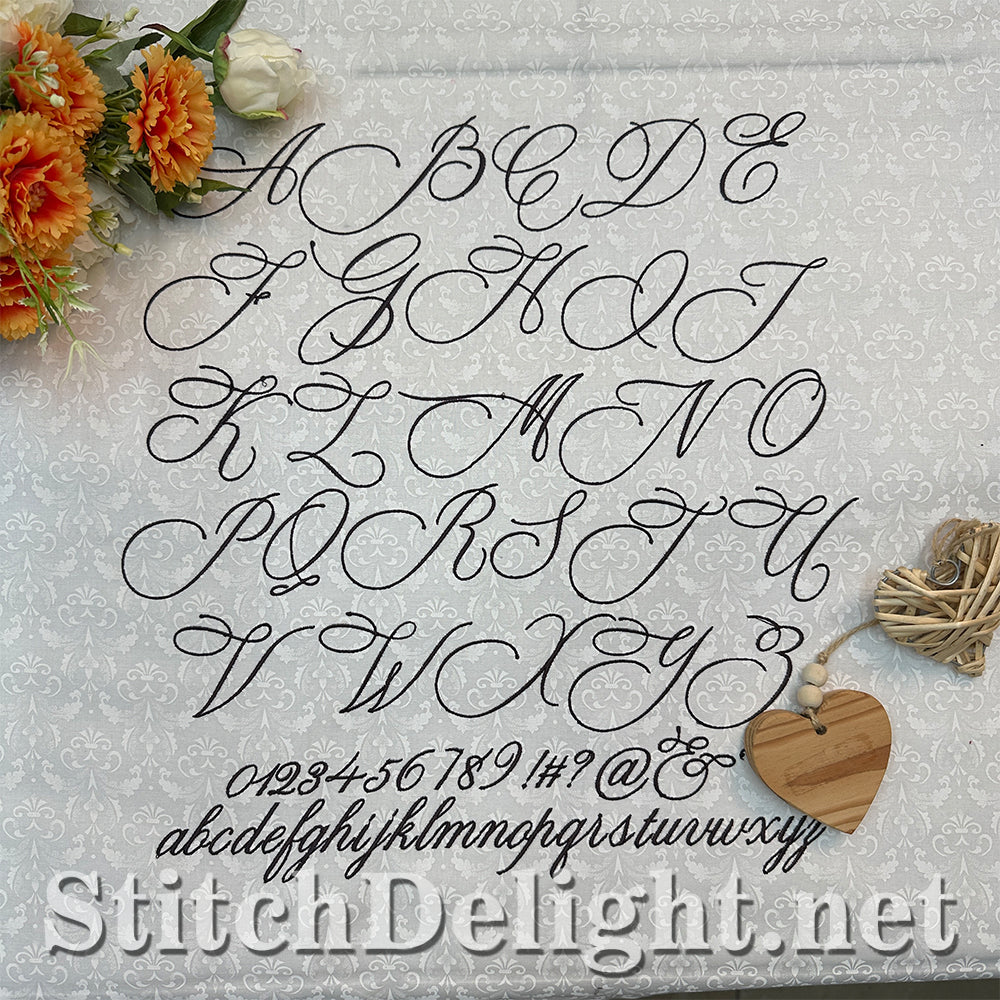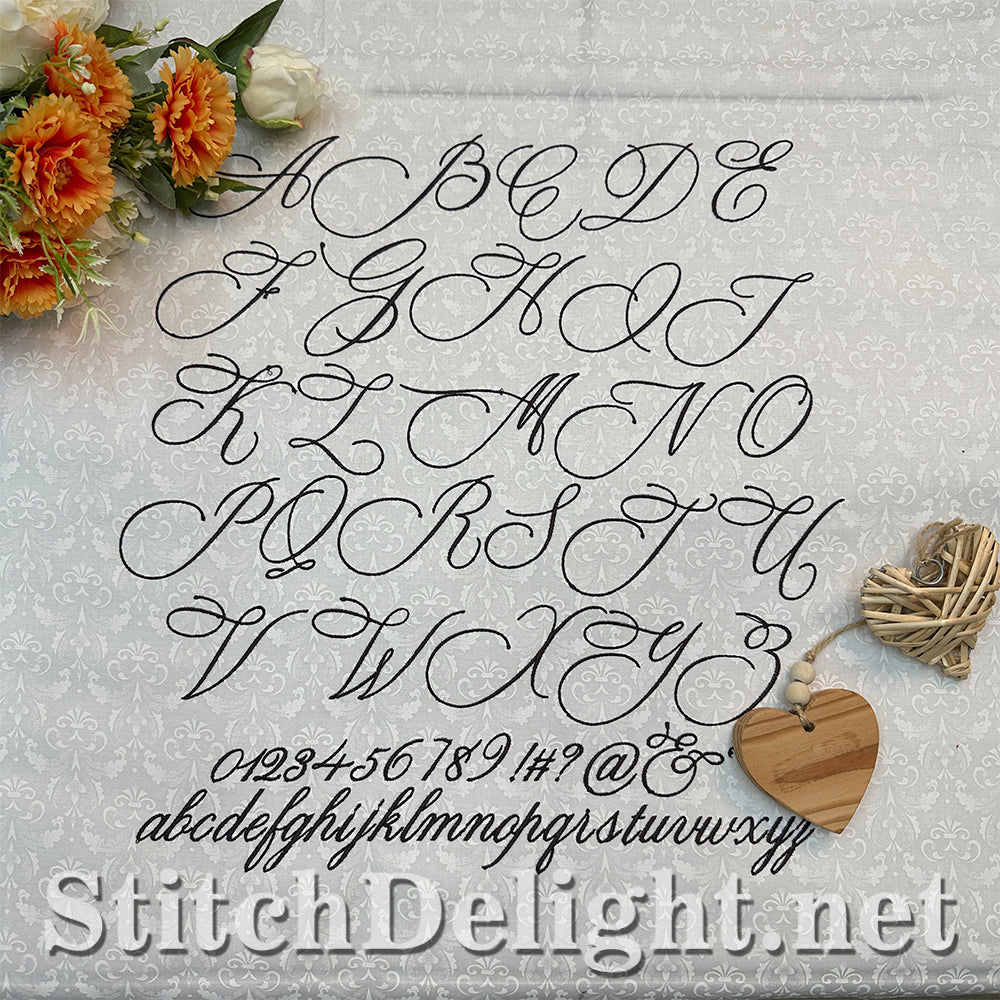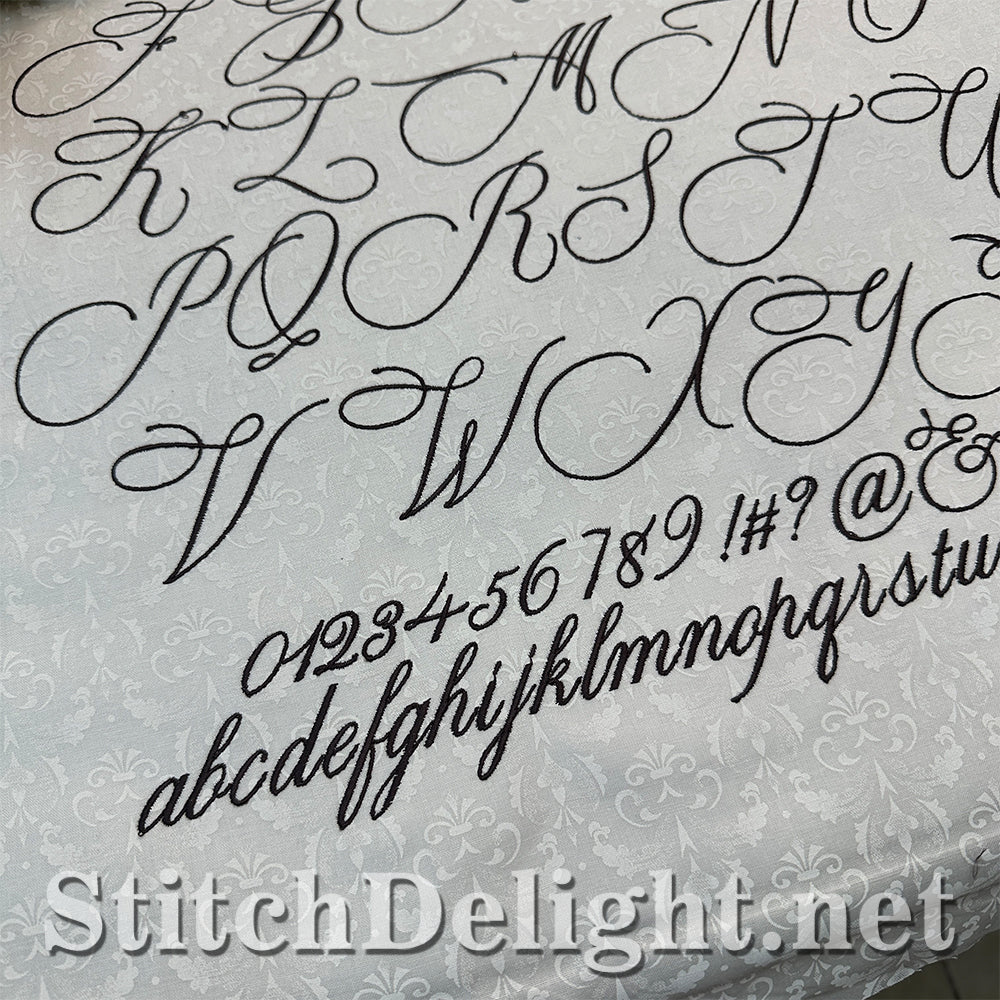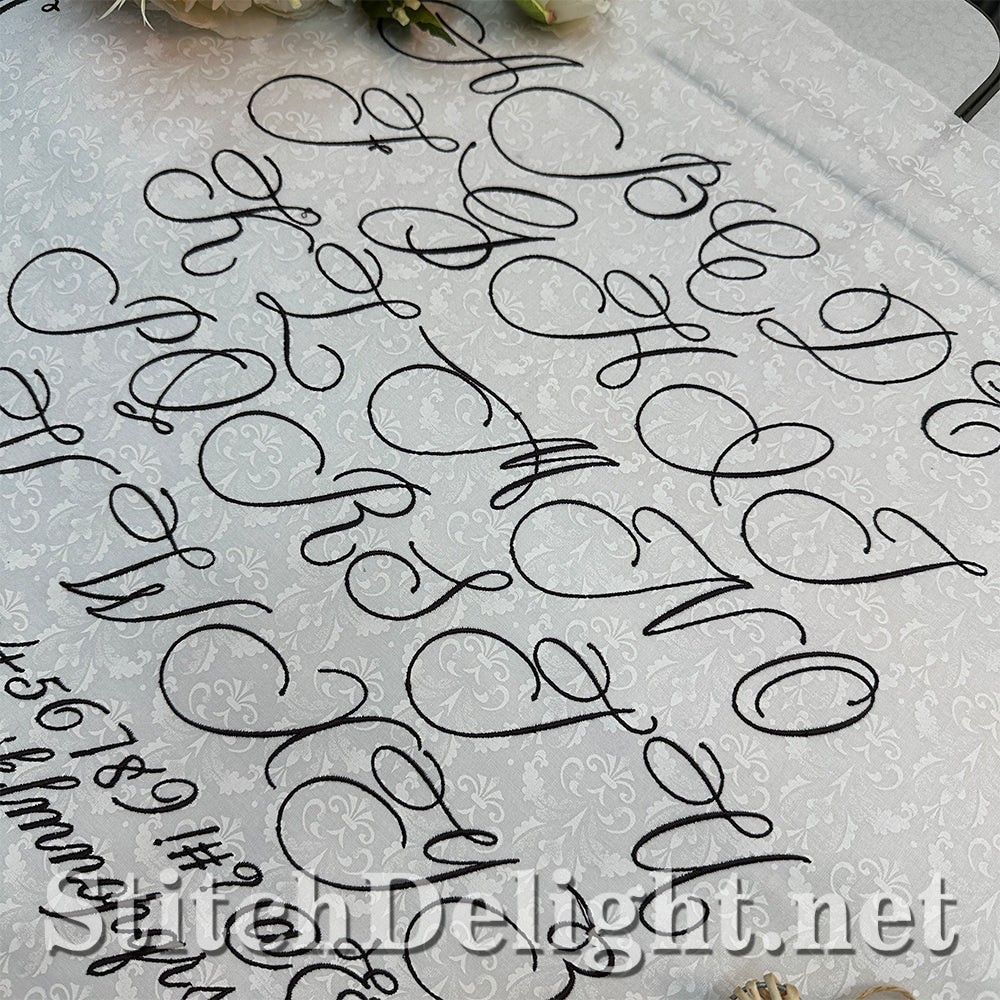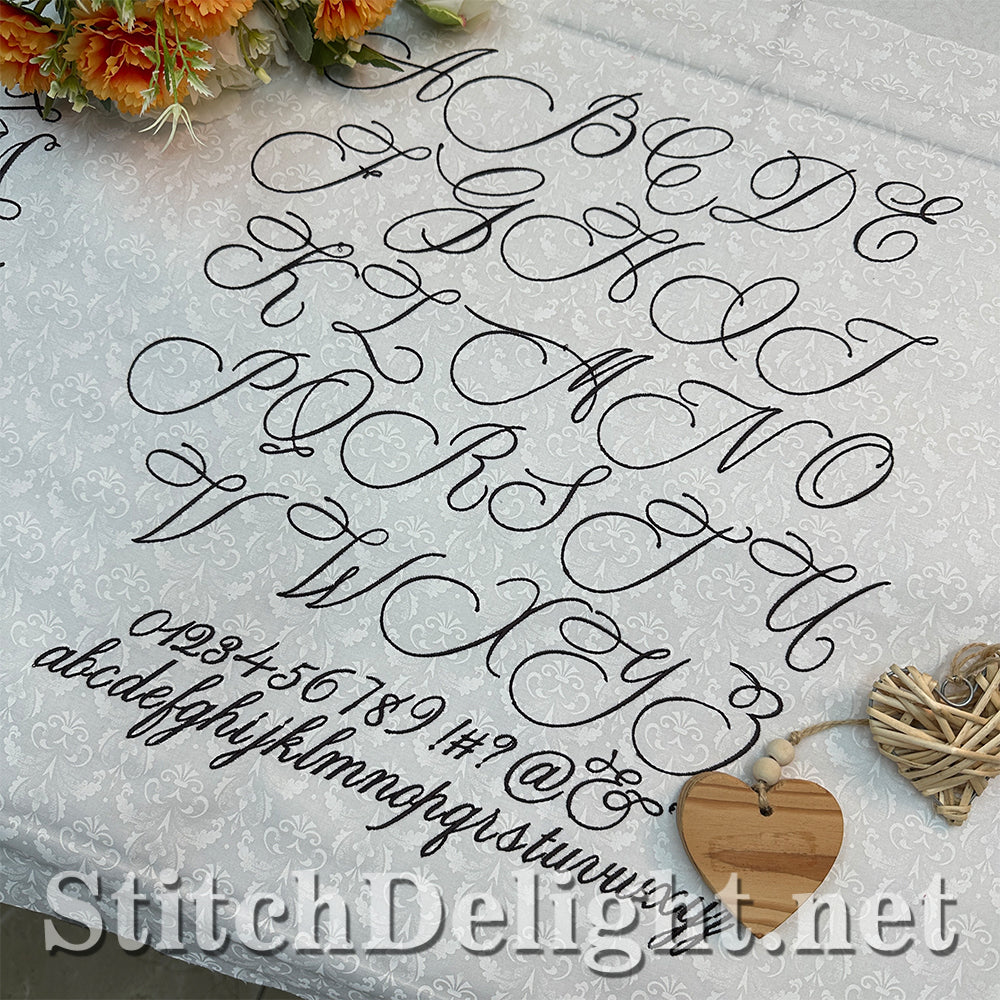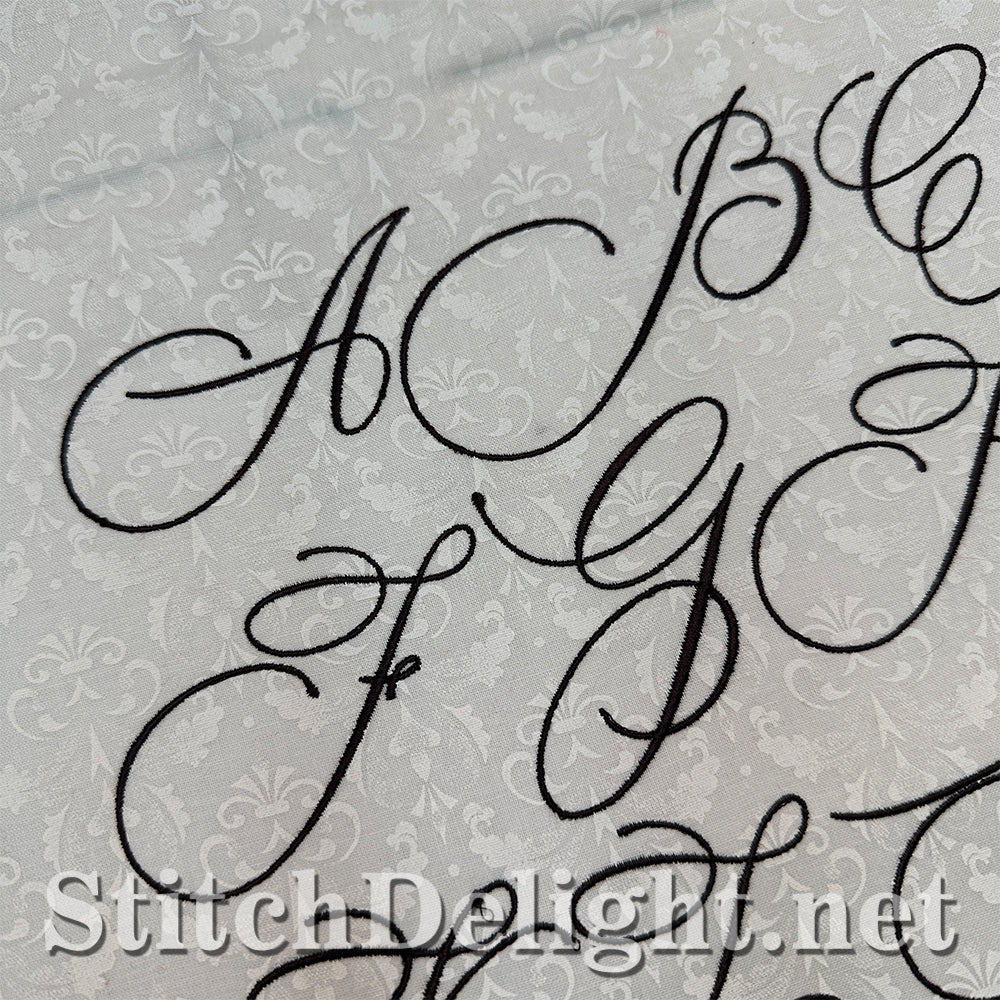
This gorgeous font with the slim and elegant scrolls are perfect for wedding projects, special linen etc. I used this font on the Family Crest Set - VIEW HERE
Letter height of this font is 1.37inch or 35mm